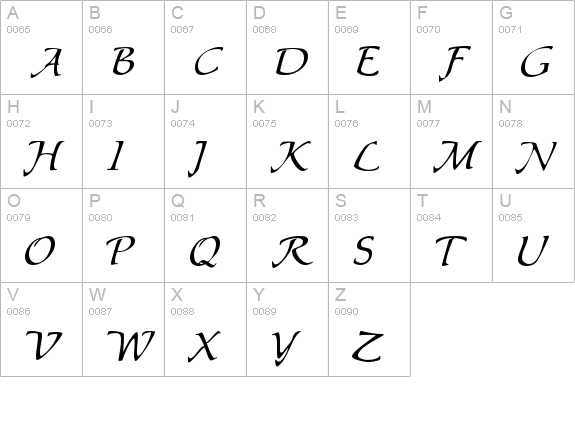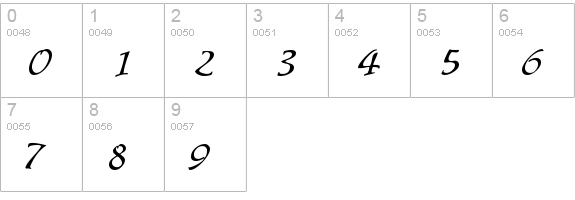
LeisureCaligraphic Font Details
LeisureCaligraphic font exudes an air of elegance and sophistication with its gracefully flowing lines and intricate curves. This font captures the essence of leisure and relaxation, making it the perfect choice for projects that seek to evoke a sense of tranquility and calmness. With its delicate strokes and beautifully designed characters, LeisureCaligraphic font adds a touch of class to any design. Whether you're creating wedding invitations, branding materials, or simply want to add a touch of elegance to your personal projects, this font is sure to impress. What sets LeisureCaligraphic font apart is not only its stunning design but also its availability as a free download. That's right, you can now freely access this captivating font at FontsMarket.com. This means that you can bring a touch of sophistication to your designs without breaking the bank. Download LeisureCaligraphic font today and let it effortlessly elevate your design projects. Its timeless beauty and versatility make it a must-have for any designer or creative individual looking to make a lasting impression. Don't miss out on this opportunity to enhance your work with a font that combines elegance and accessibility.